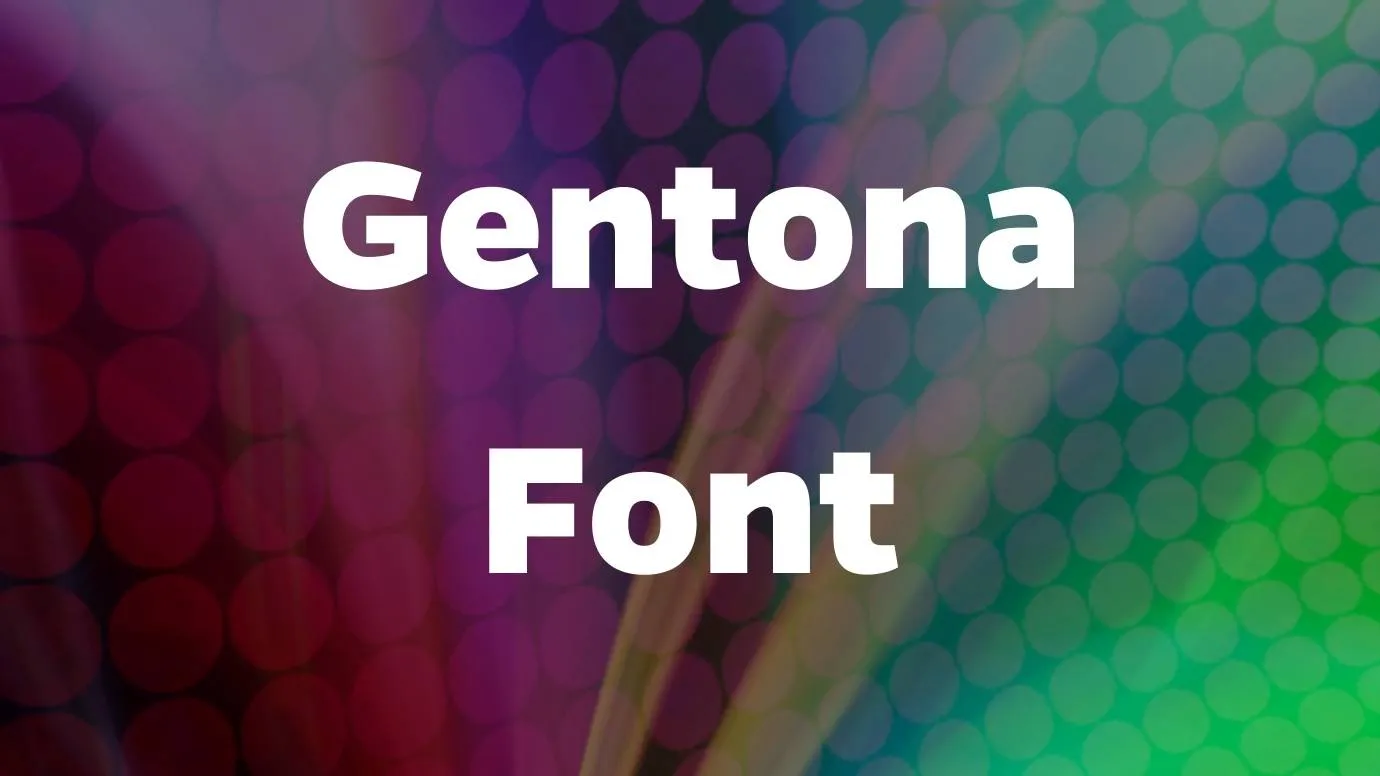
Gentona belongs to the modern sans serif typeface. This typeface has bold sans-serif characters that are popular due to its strong quality. It was designed by Rene Bieder with bold and extra bold styles.
This typeface has an awesome structure that has clean and attractive characters. This font is also good for pairing with benton sans extra comp black font for creating new and astonishing designs.
Gentona Font
NameGentona Font
TypeSans Serif
DesignerRene Bieder